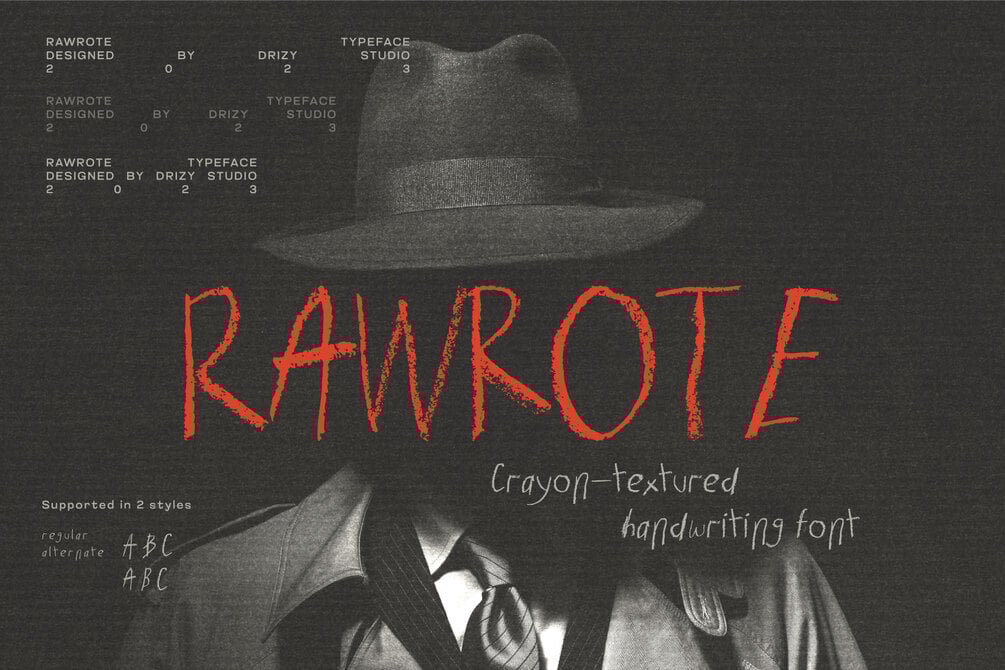
Rawrote – Crayon Textured Handwriting Font
Rawrote – Crayon Textured Handwriting Font is a spine-chilling yet mesmerizing typeface that brings an eerie charm to your creative projects. With its distinctively raw and unsettling crayon texture, Rawrote embodies the essence of handmade imperfections, amplifying the unsettling ambiance of horror. This font is carefully designed to evoke feelings of mystery and fear, blending childlike innocence with a sinister edge. Rawrote offers an unforgettable visual impact. Embrace the haunting uniqueness of Rawrote and let its textured strokes and ominous vibe transform your designs into something truly bone chilling..